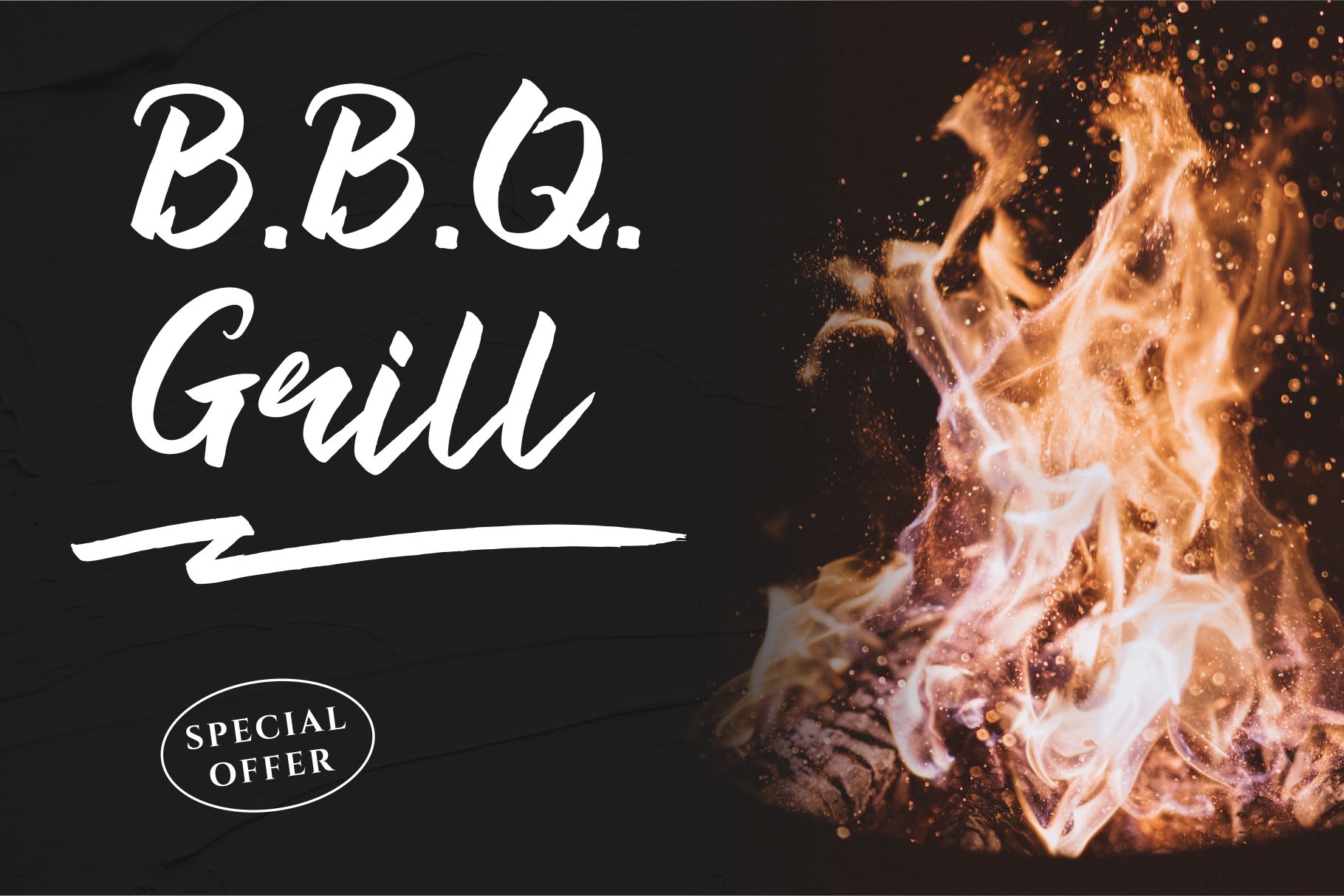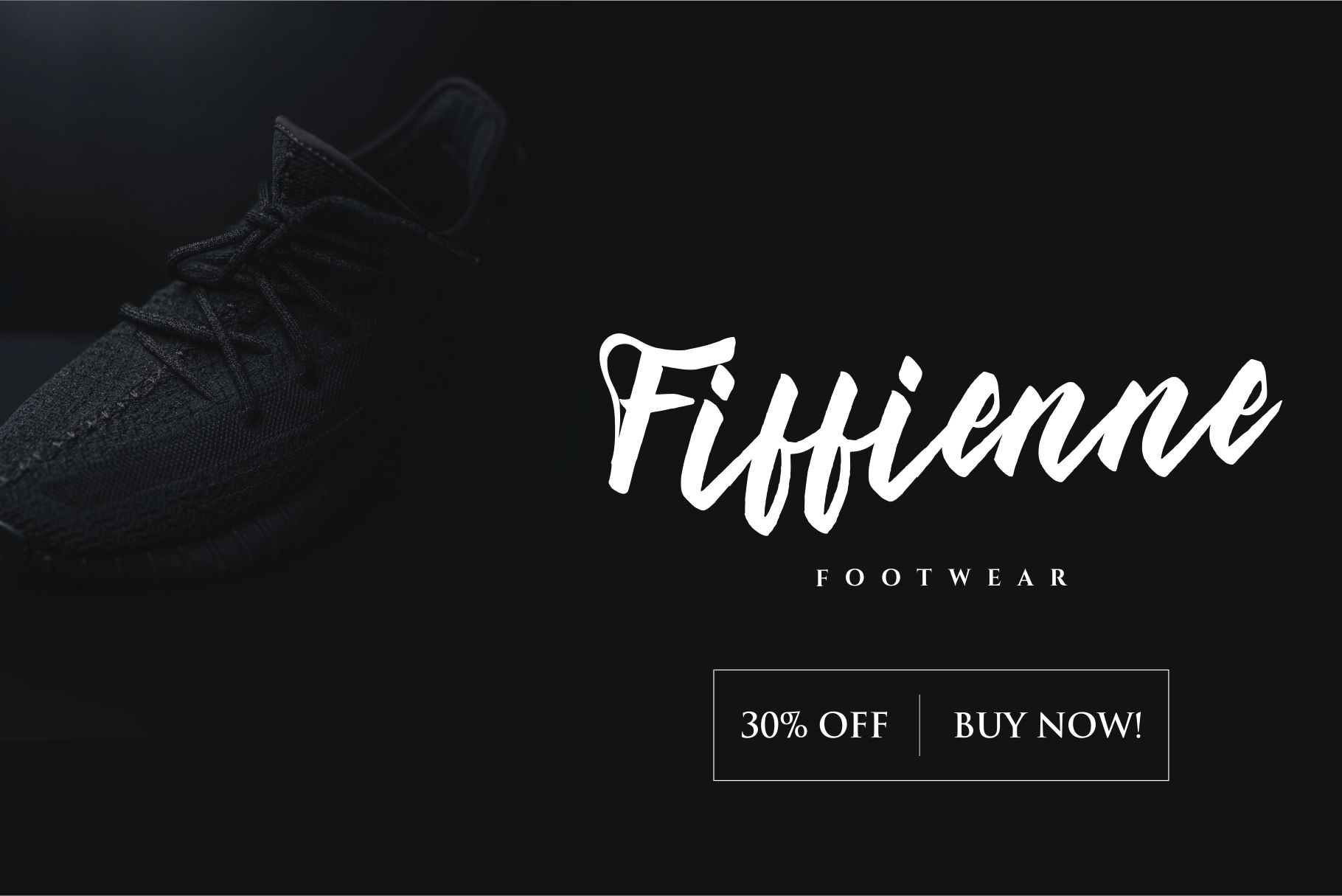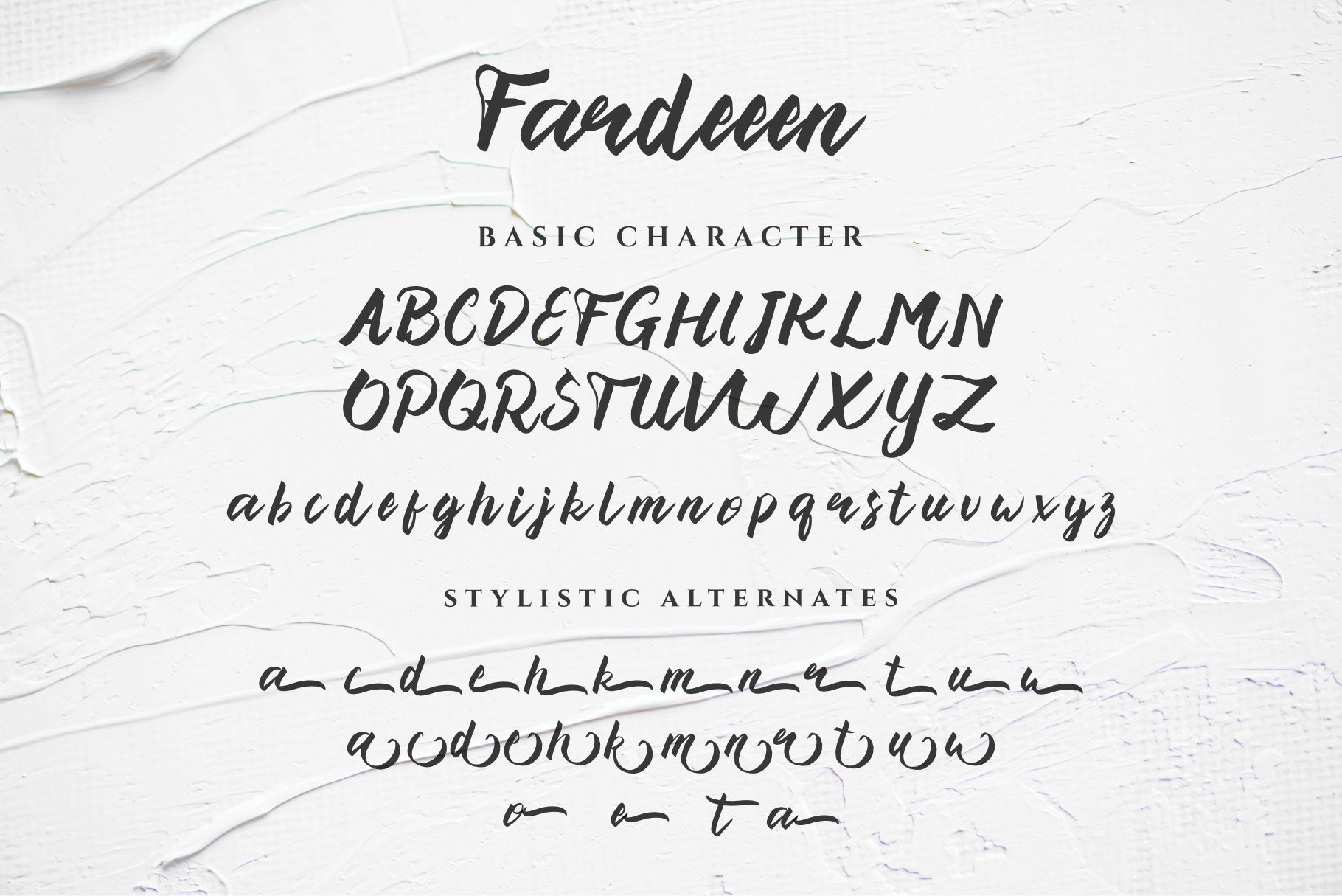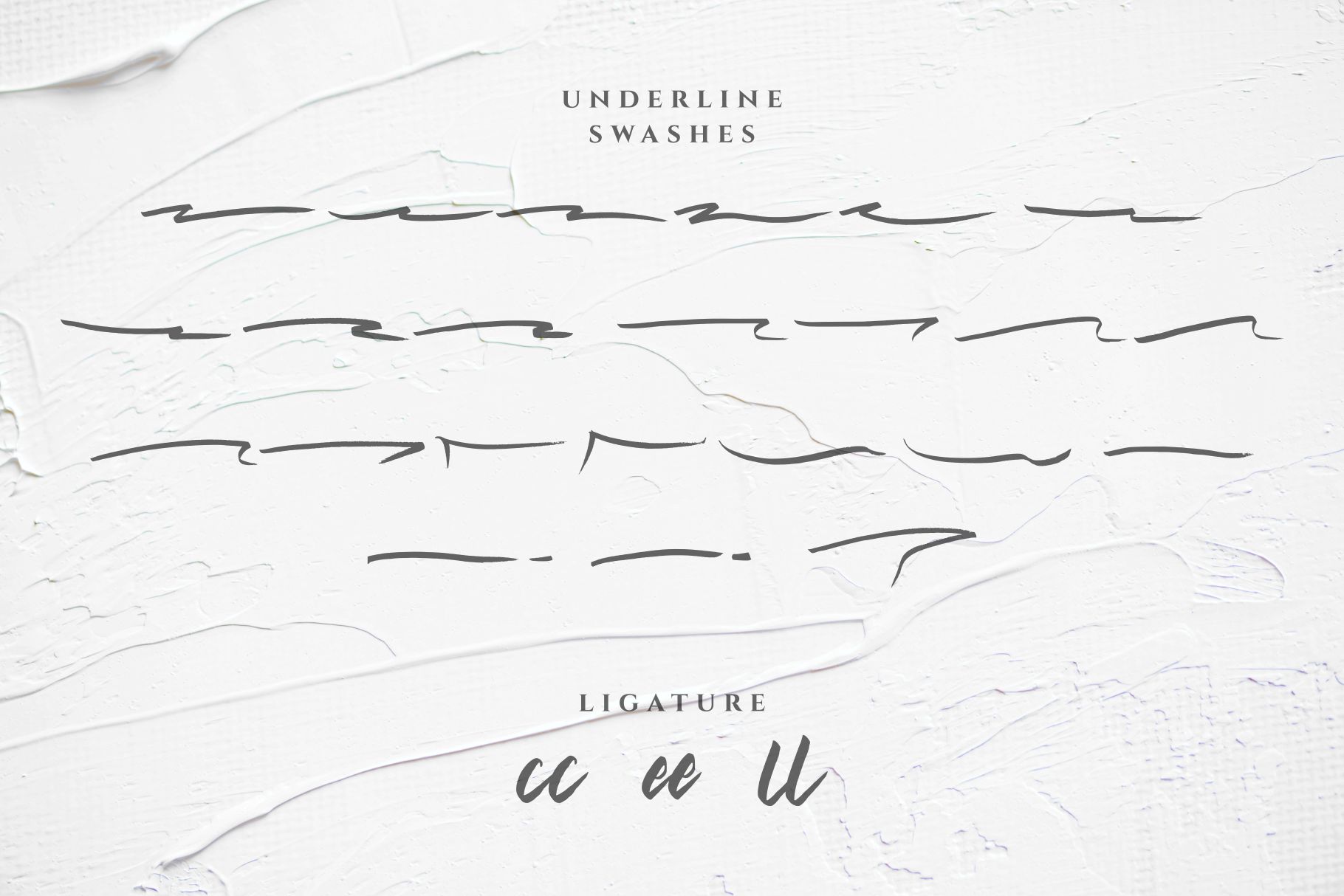
Fardeeen Script font
This is Natural handbrush font. as well as various other designs such as company logos, business cards, book titles, brand names, and others.